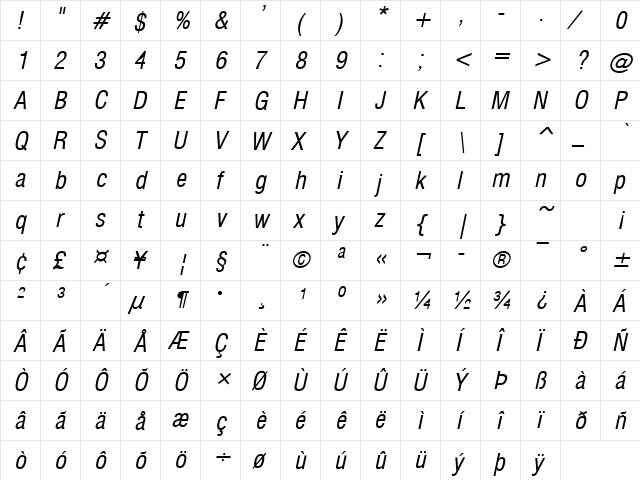
Corporate Condensed Italic Font Preview
Design Context for Corporate Condensed Typeface
Corporate Condensed takes a measured approach to typography — its balanced proportions and neutral character make it a reliable workhorse for both digital and print work. The dynamic lean of this cut emphasises speed and emphasis in any layout. The condensed width makes it efficient for tight spaces without sacrificing legibility.
Pro Tip: Try Corporate Condensed for annotation and caption copy alongside an upright companion — the contrast in angle creates a dynamic but ordered typographic system.